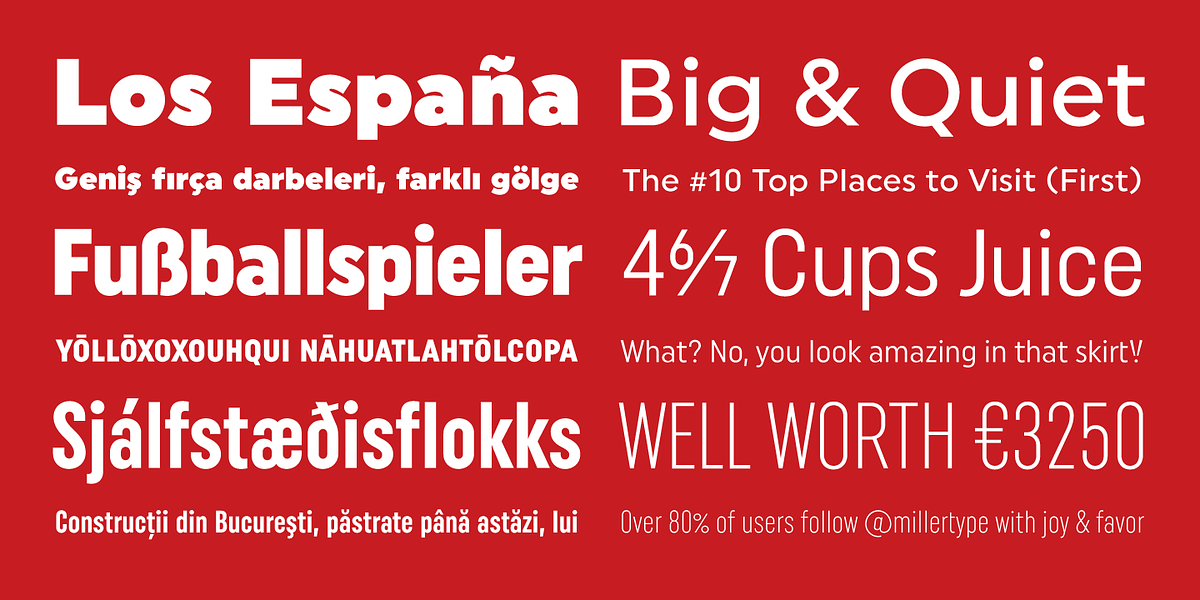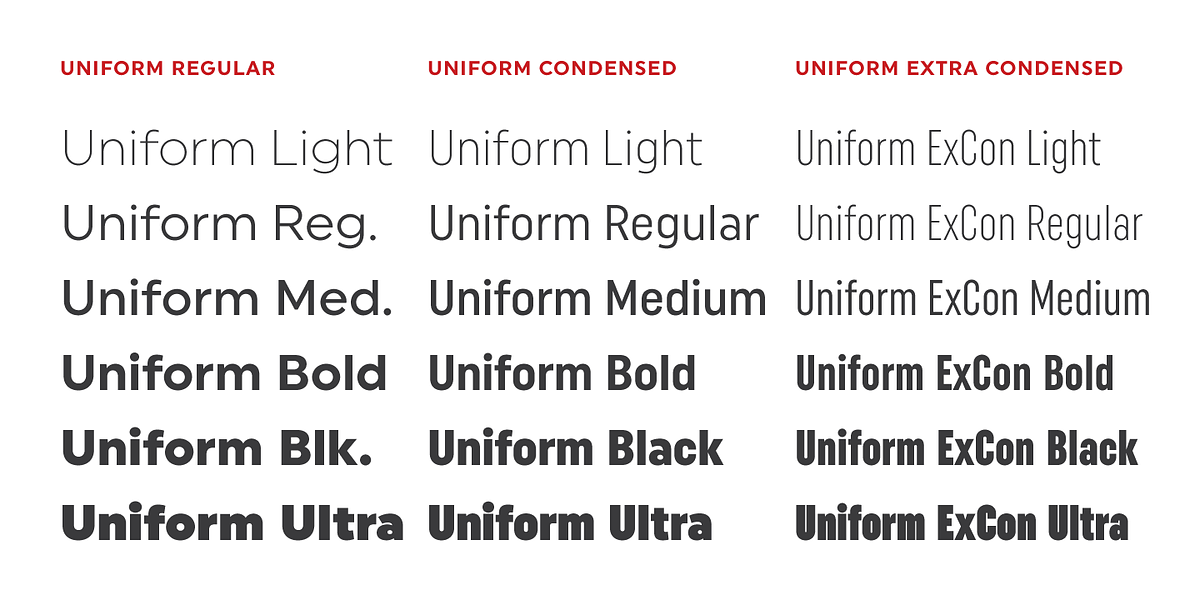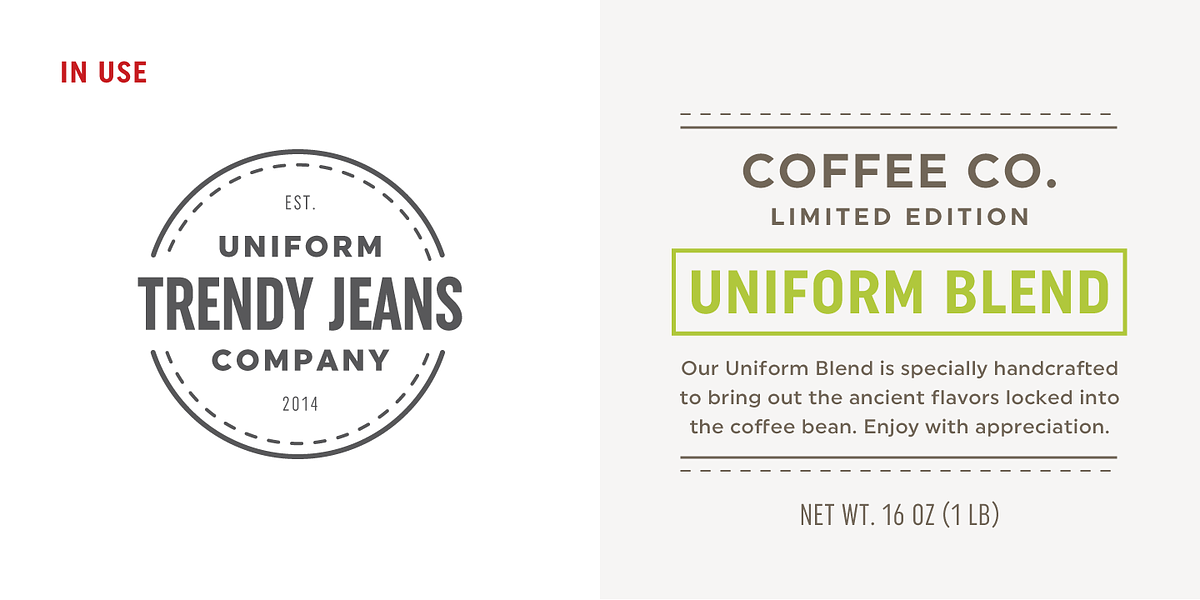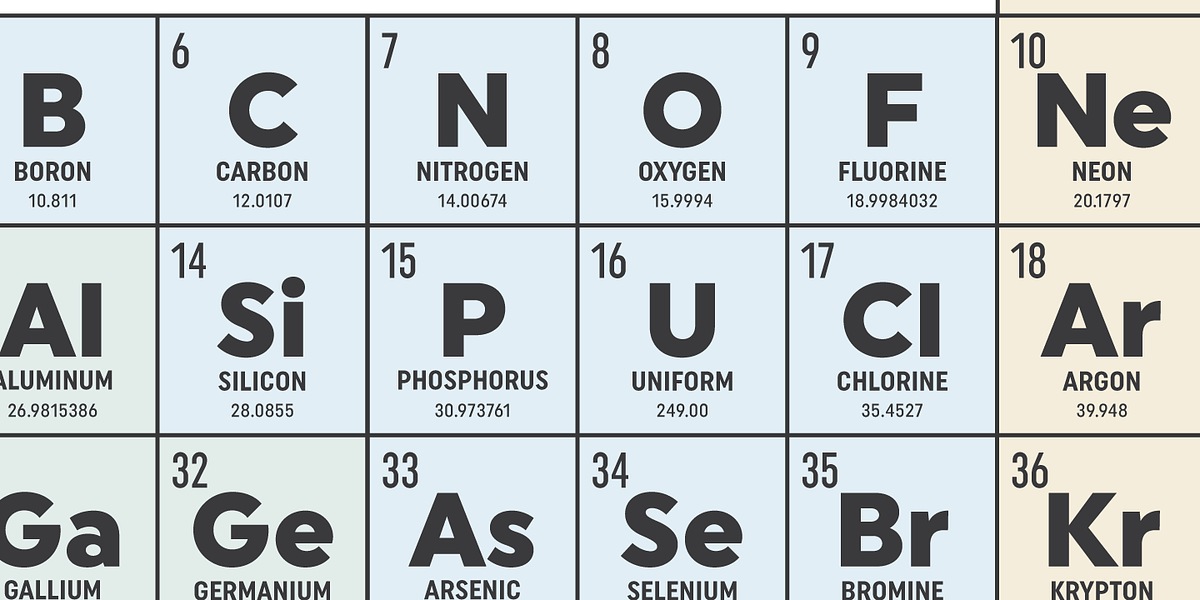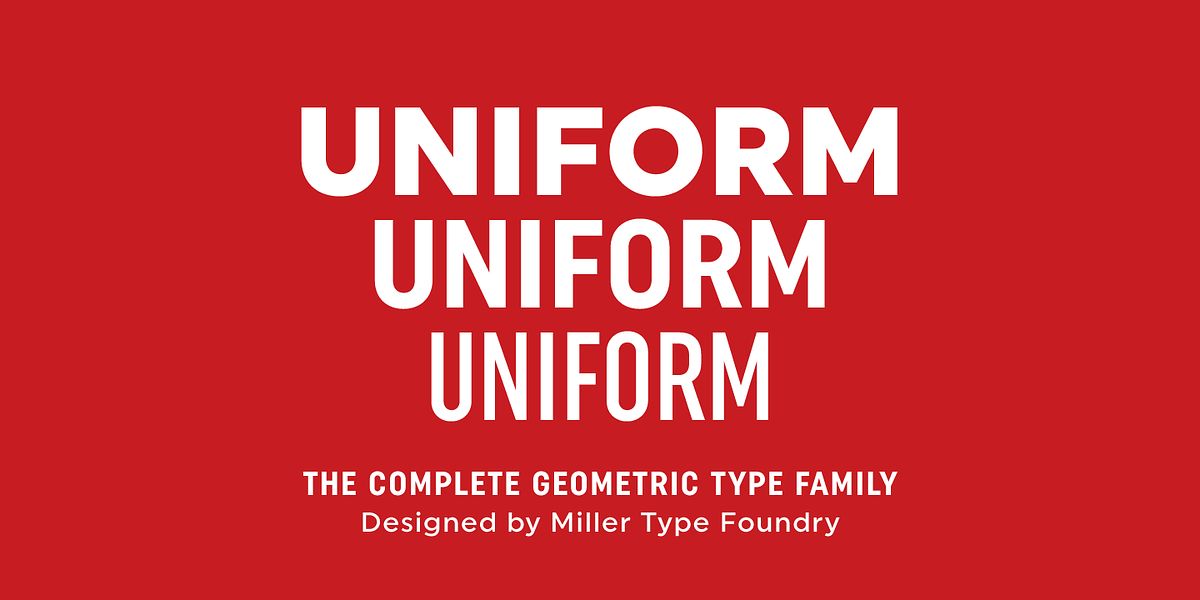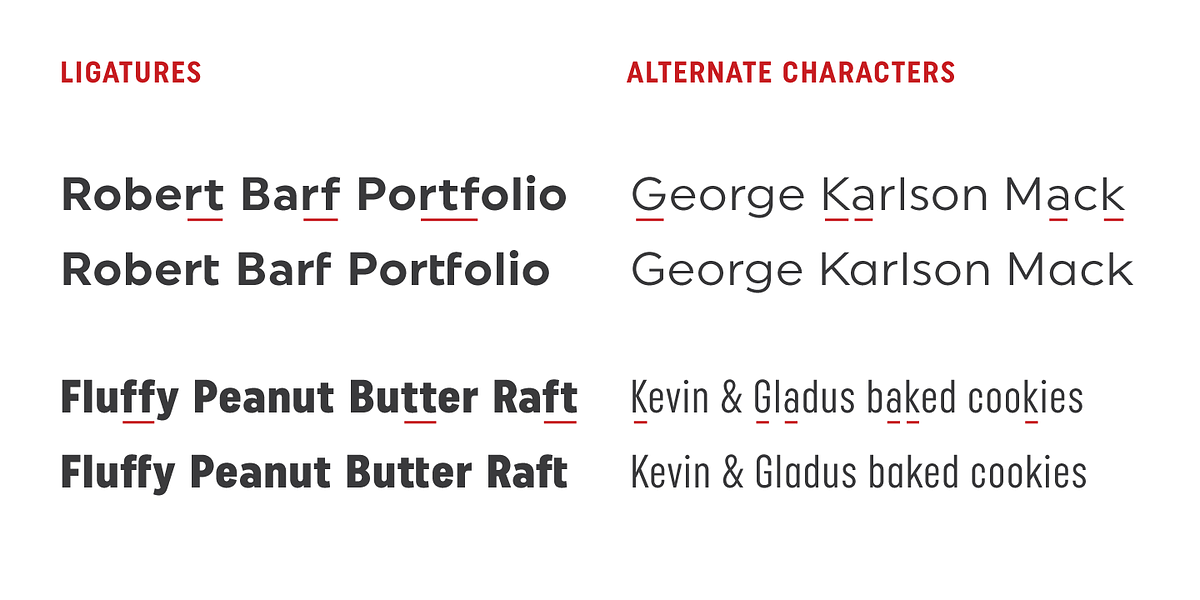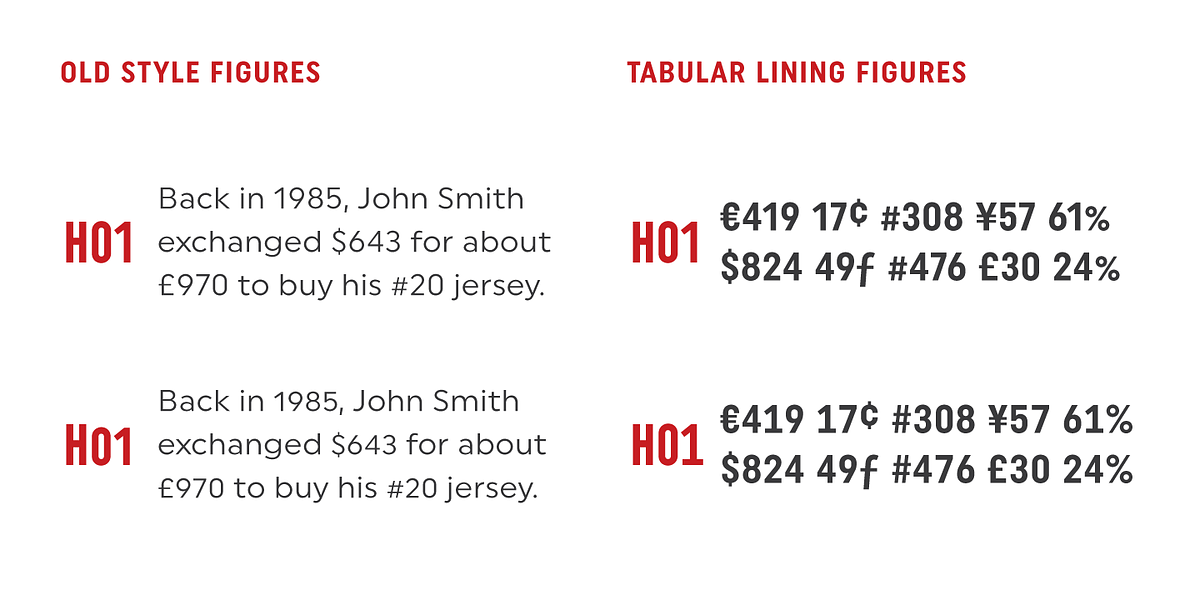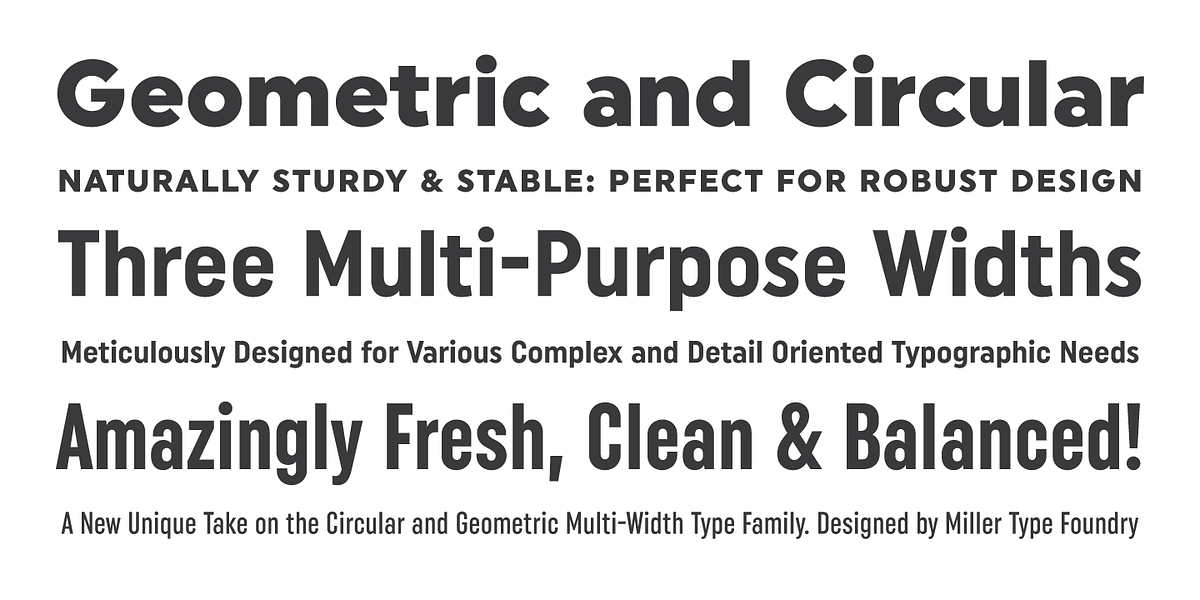
Uniform
Uniform is a geometric sans-serif typeface family characterized by its unique construction. Each width (Regular, Condensed, and Extra Condensed) is derived from the shape of a circle or stacked circles. This results in a fresh, modern aesthetic that bridges the gap between traditional circular geometric typefaces and condensed straight-sided designs. The typeface boasts a range of weights and includes OpenType features such as Old Style Figures, Tabular Lining Figures, alternate characters, and ligatures, enhancing its versatility. Uniform's clean lines and balanced forms make it suitable for various applications, from branding and web design to book covers and signage.